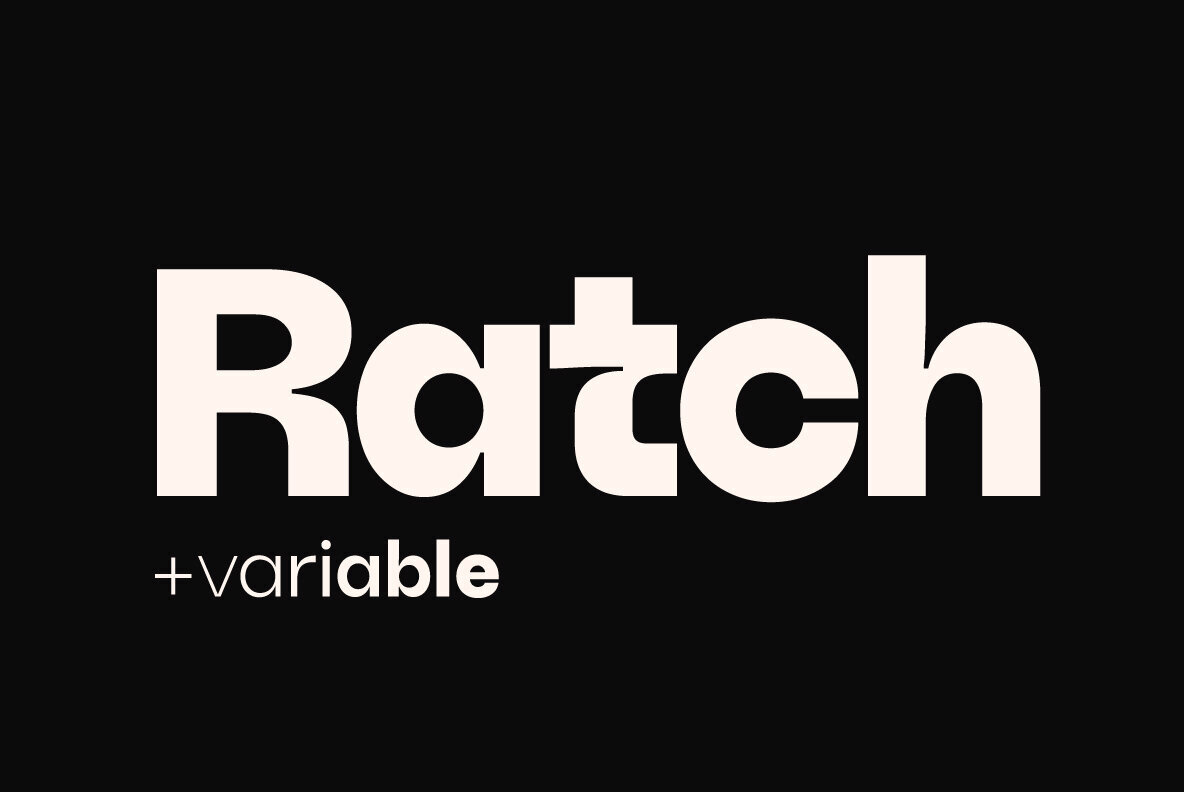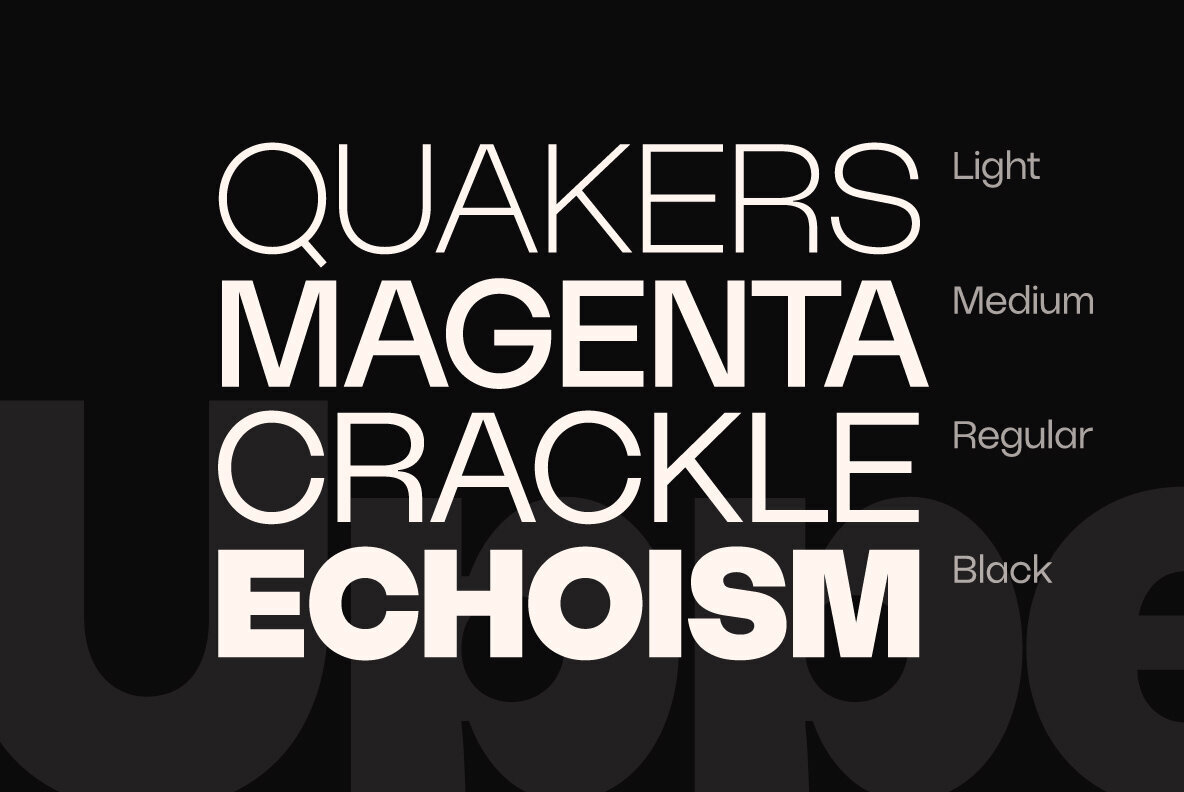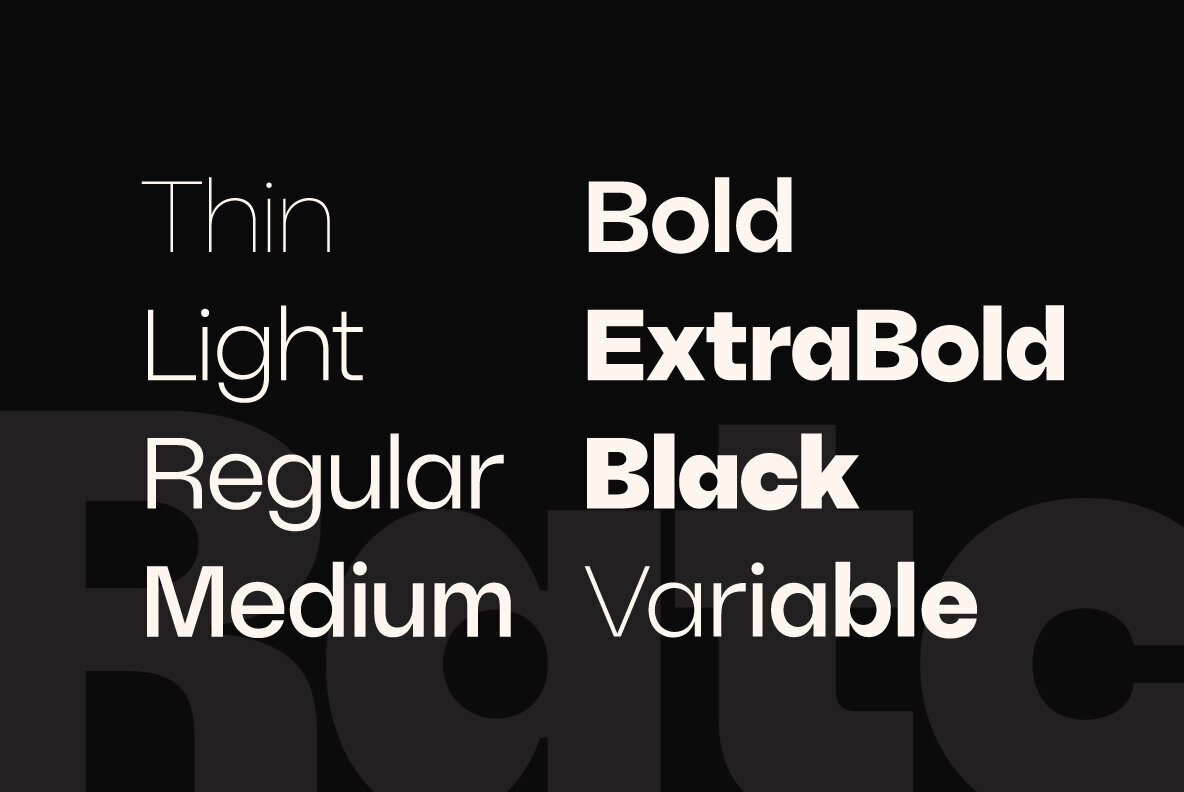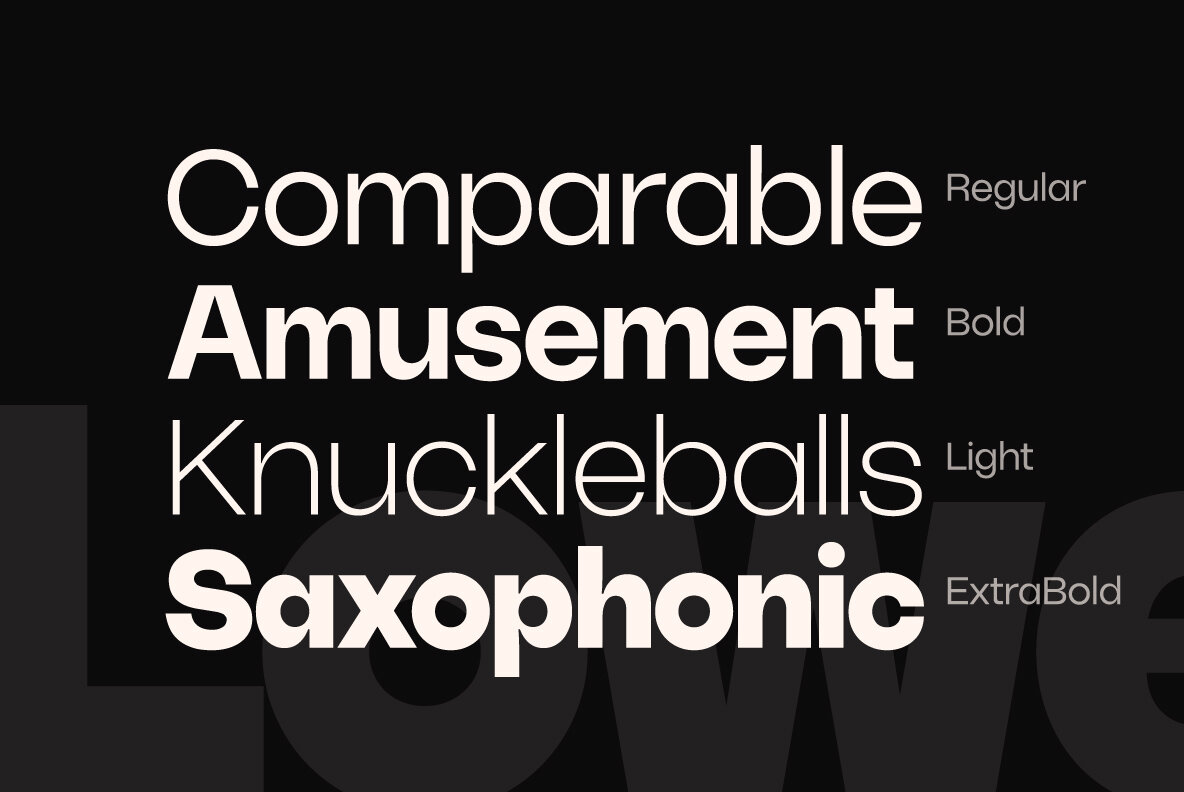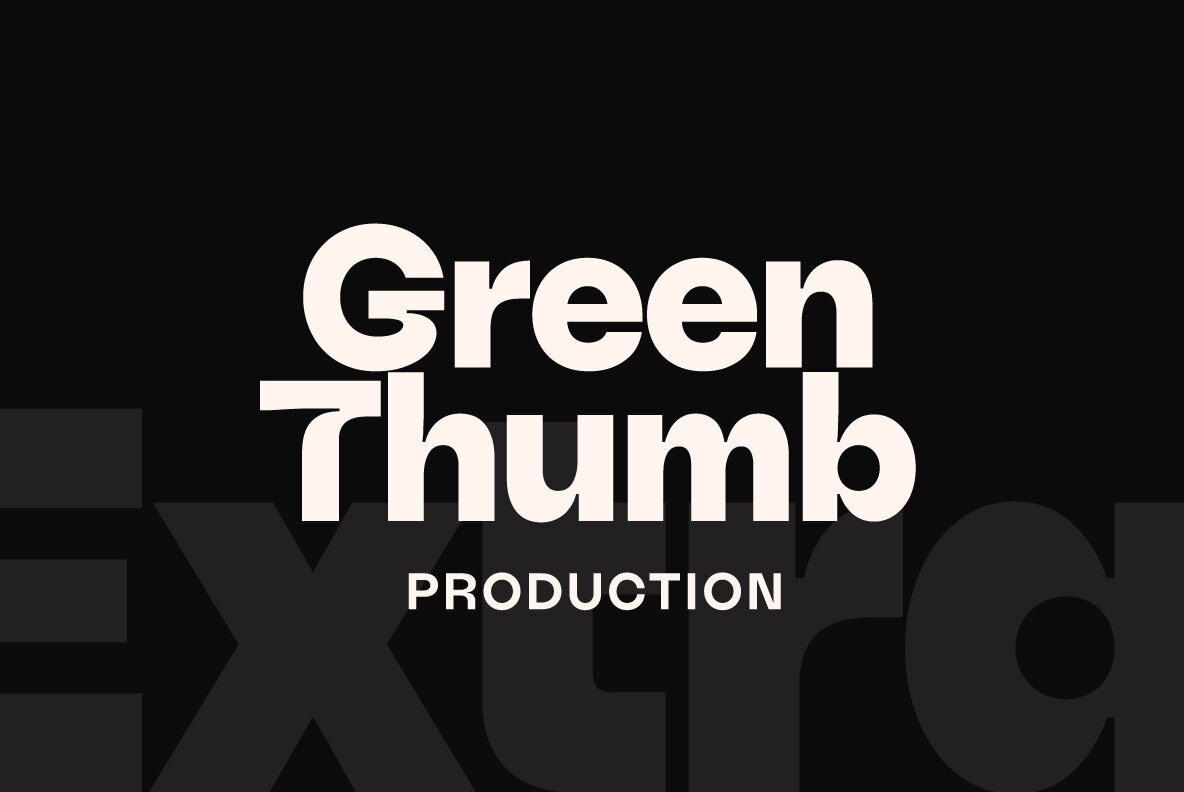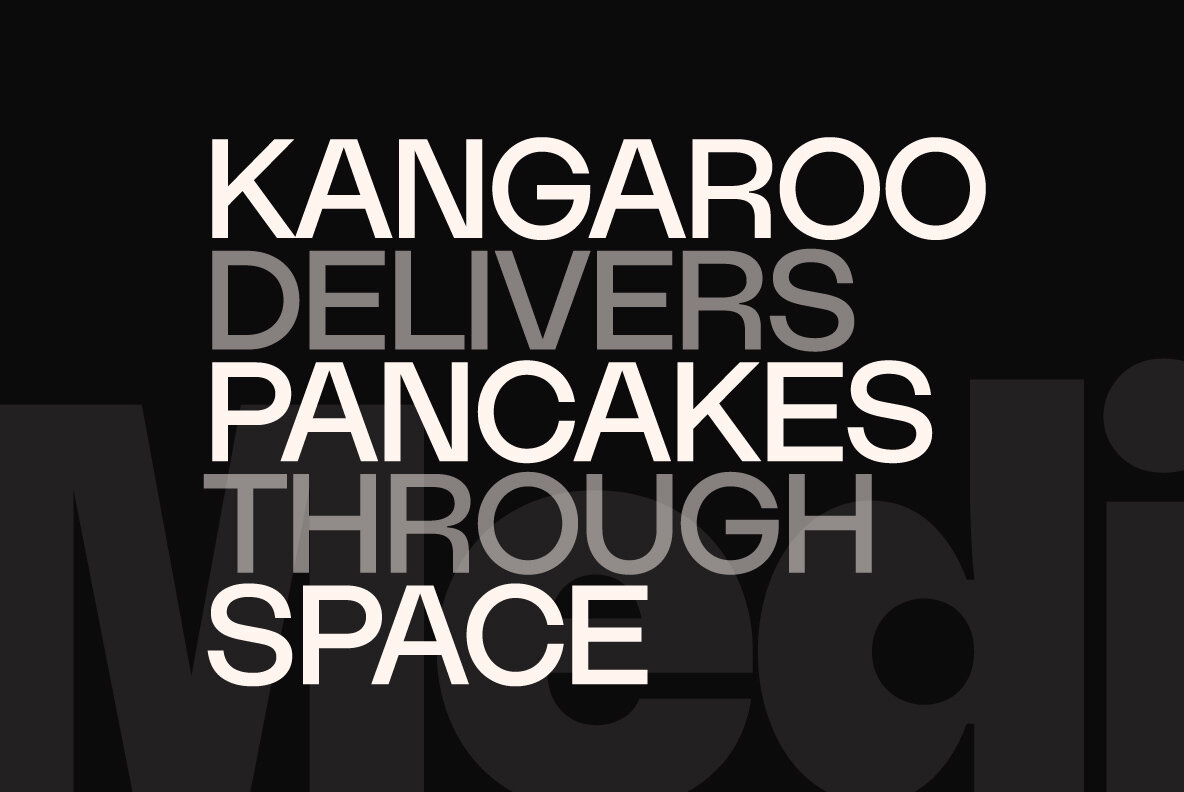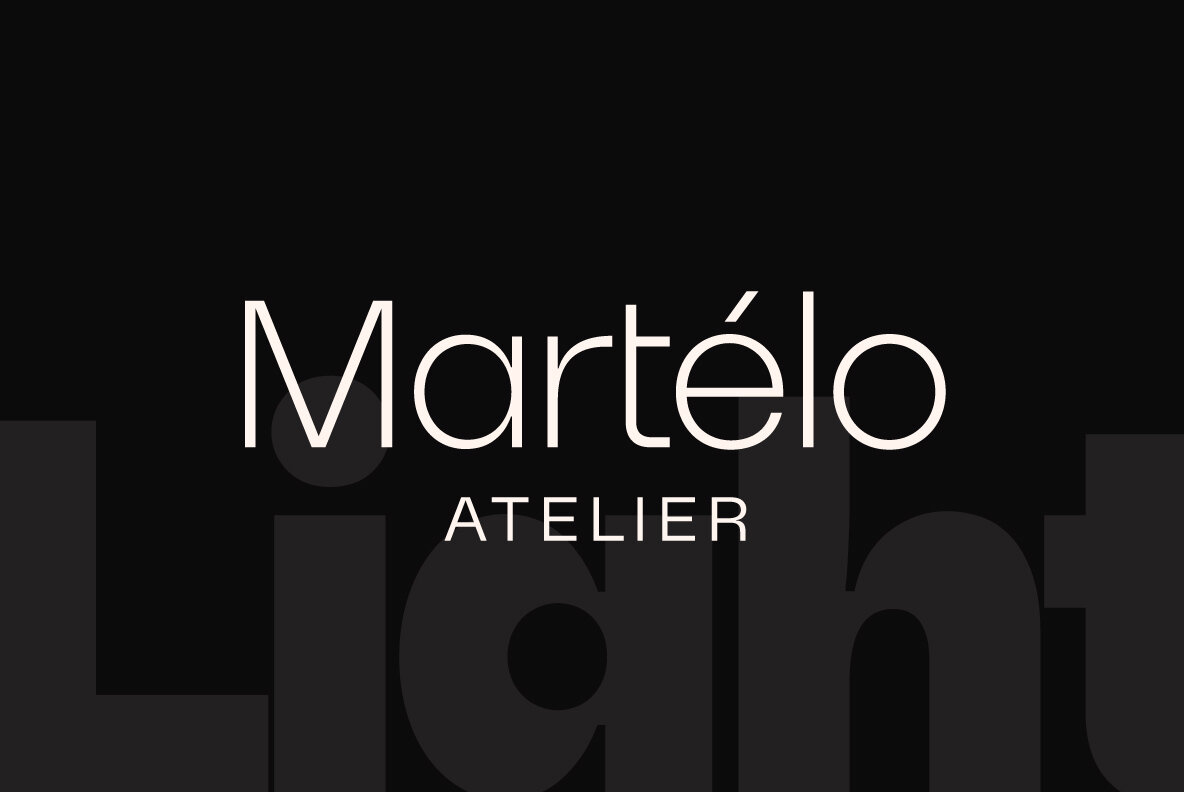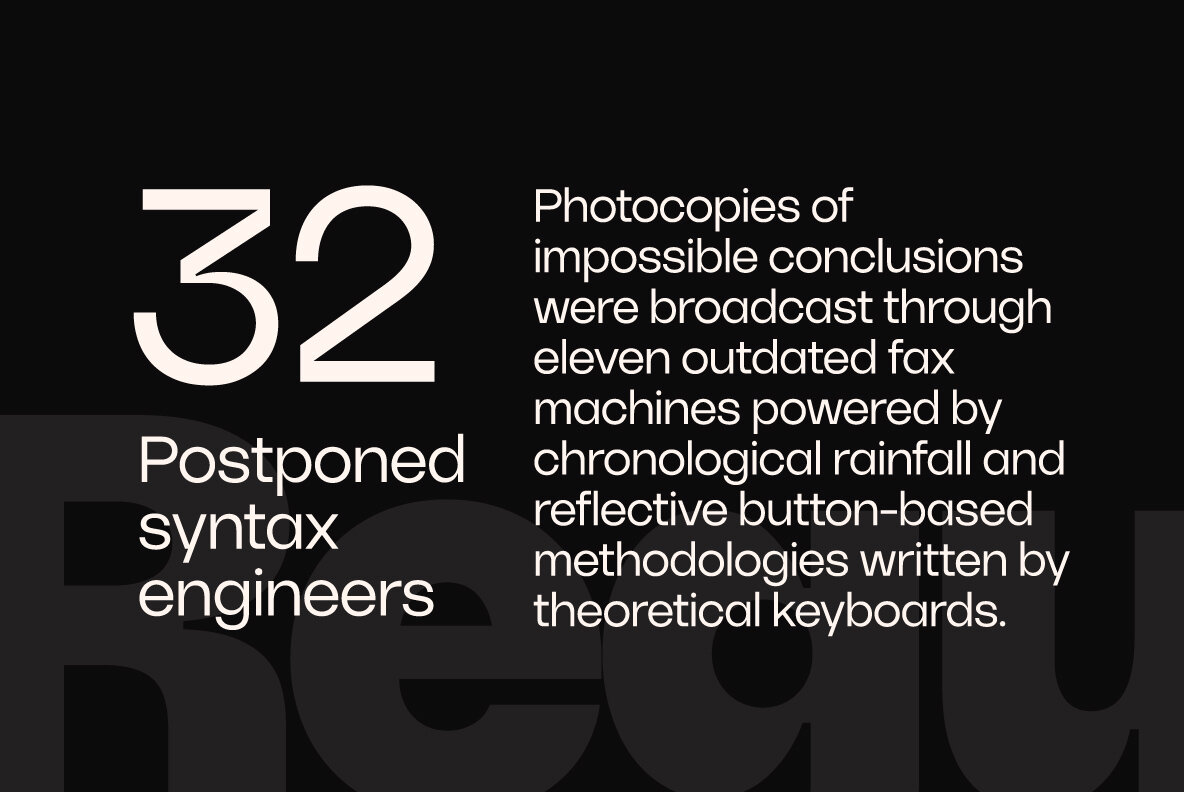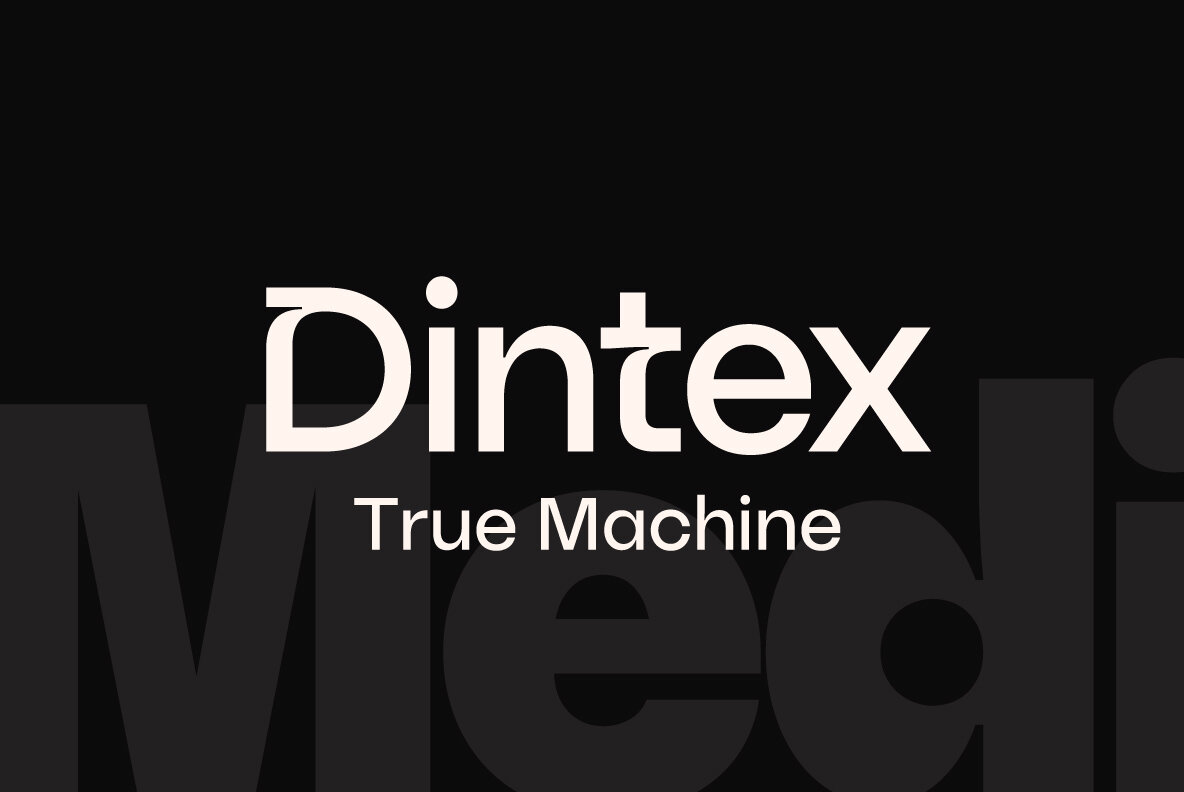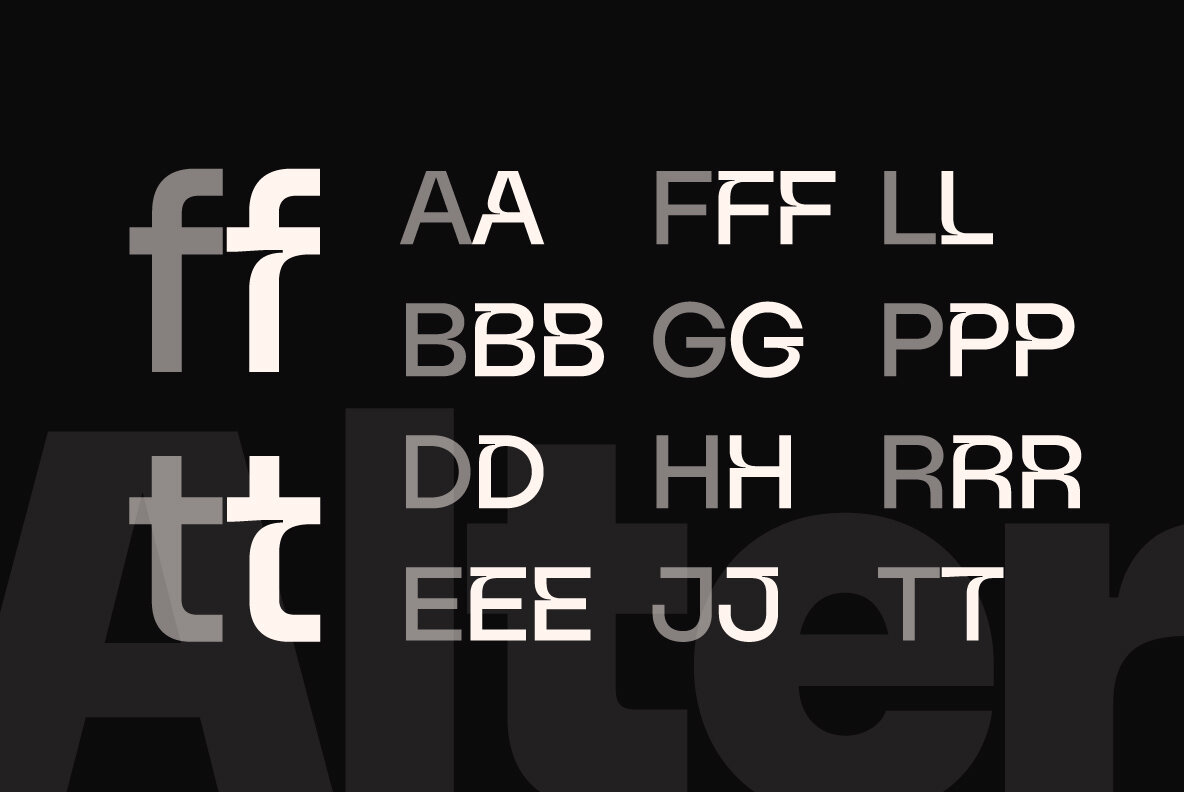
Ratch Font
Ratch exemplifies modern design with its geometric grotesk typeface family, offering seven distinct weights ranging from Thin to Black. This versatile collection includes a fully functional variable font, making it an ideal choice for diverse design projects. Each style within this family boasts stylistic alternates that allow for personalized text enhancements. The stylistic alternates are readily accessible in most major image editing software, enhancing your creative flexibility. In Adobe Illustrator, for instance, navigate to Window > Type > Glyphs to explore these options.Ratch: Modern Geometric Grotesk Typeface Family
Comprehensive Font Features